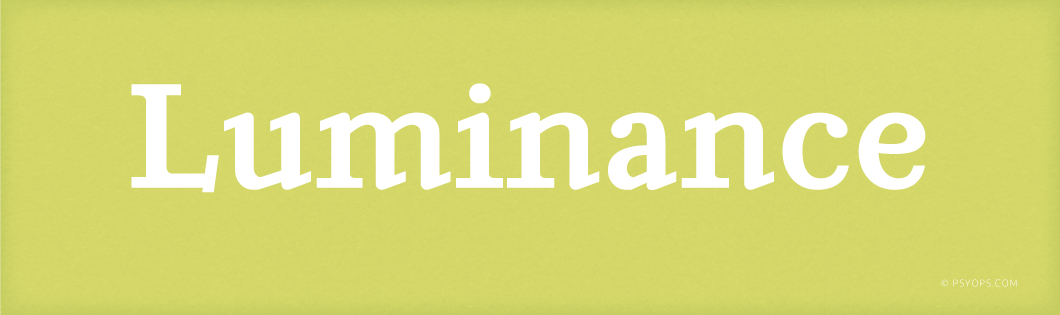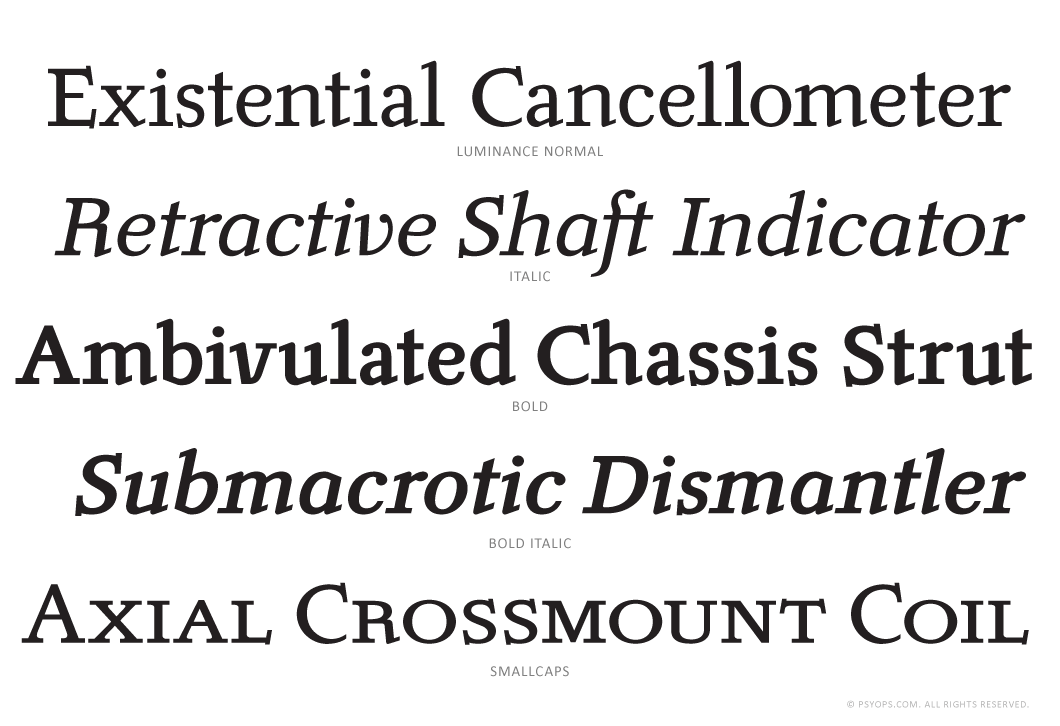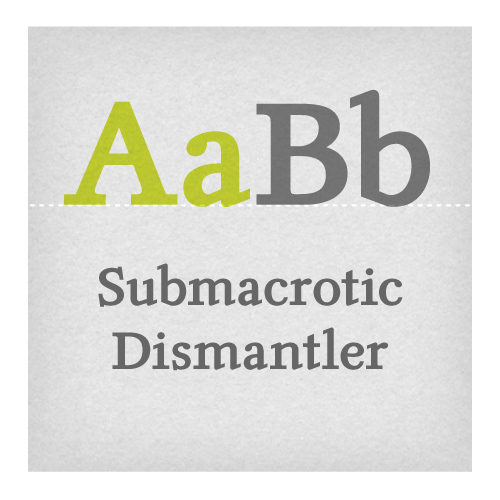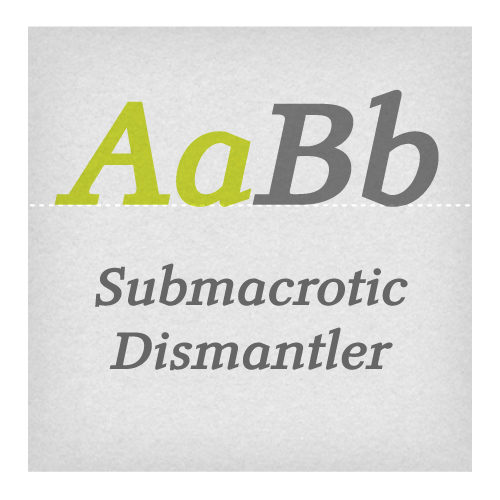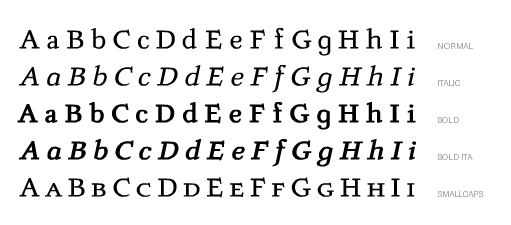
Originally made by the Chech type designer Carl Pracht in 1941-43. Having a rather calligraphic style both in regular and italic, designer Stefan Hattenbach prefered it to be more straight forward and modern looking. The italic version was executed with “traditional italic letters” (a, f, g, k, v, w and y). The numerals were made in a classic manner as “Old Style Figures”. Could be treated as both a text- and display font.
The Luminance fonts include: Western and Eastern European characters, Stylistic Alternates, ligatures, and more. A Smallcaps font is also available.